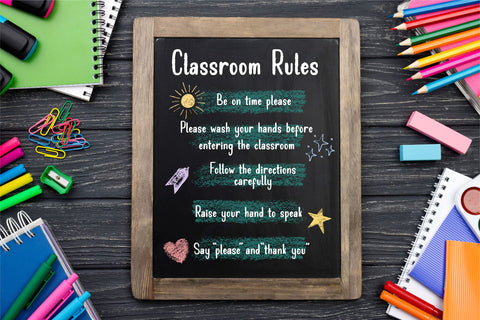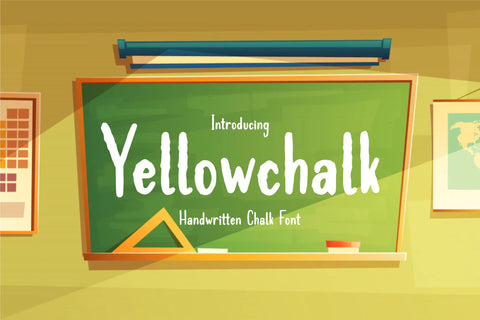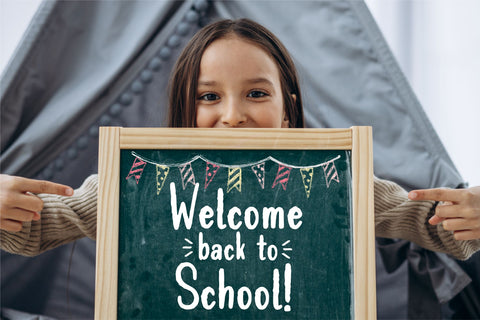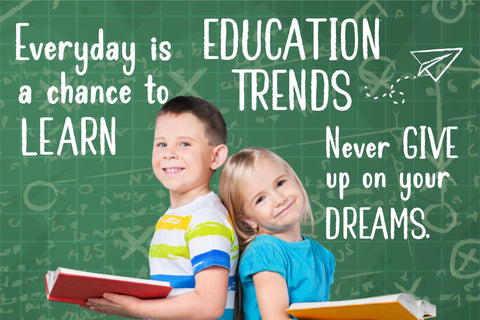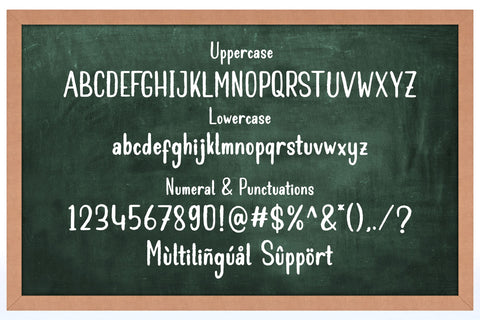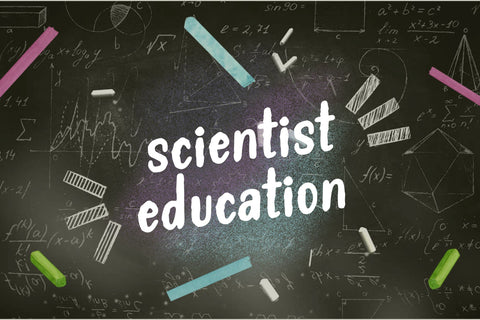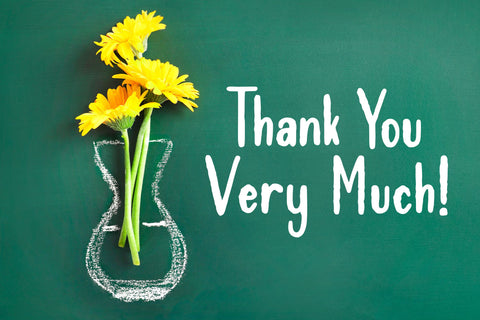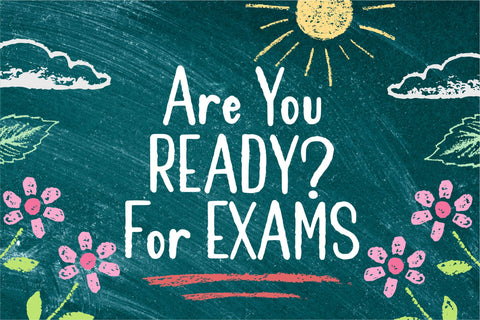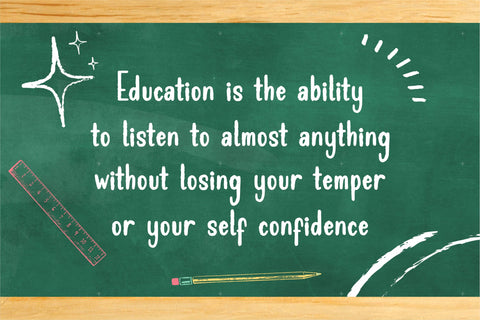
Yellowchalk
Proudly Present, Yellowchalk
Yellowchalk is a Handwritten Chalk Font
Yellowchalk is perfect for product packaging, branding project, megazine, social media, wedding, or just used to express words above the background.